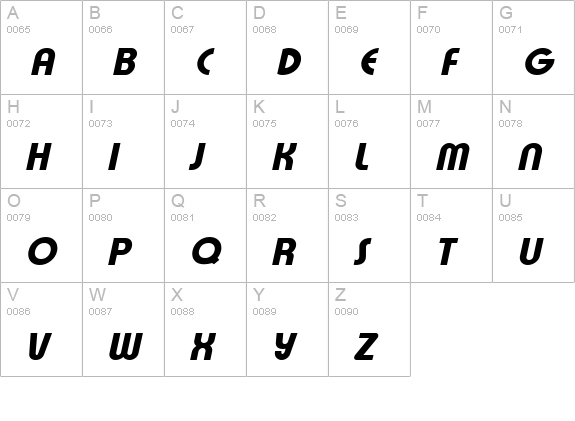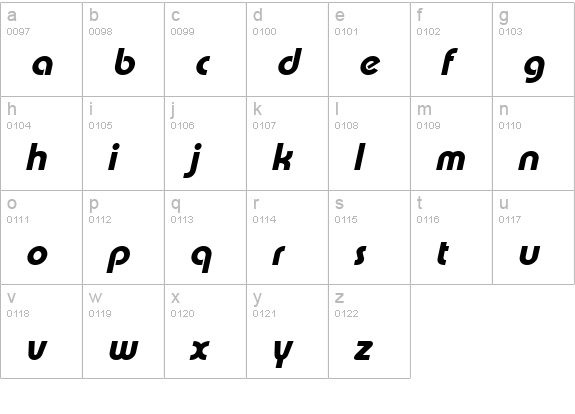
XpressiveHeavy Italic Font Details
XpressiveHeavy Italic is a distinctive, italic variant in the XpressiveHeavy typeface family \xE2\x80\x94 well suited to design and typography projects.
XpressiveHeavy Italic font is a bold and dynamic typeface that exudes a sense of creativity and individuality. With its striking slanted design, this font is perfect for making a statement in your designs. The thick, expressive strokes of XpressiveHeavy Italic give it a strong and impactful presence on the page. This font is ideal for headlines, logos, posters, and any other project that requires a touch of boldness and flair. Its unique style will make your text stand out and leave a lasting impression on your audience. Best of all, XpressiveHeavy Italic font is available for free download at FontsMarket.com. So you can add this eye-catching font to your collection without having to spend a dime. Don't miss out on this opportunity to enhance your designs with the bold and expressive XpressiveHeavy Italic font. Download it now and let your creativity shine!